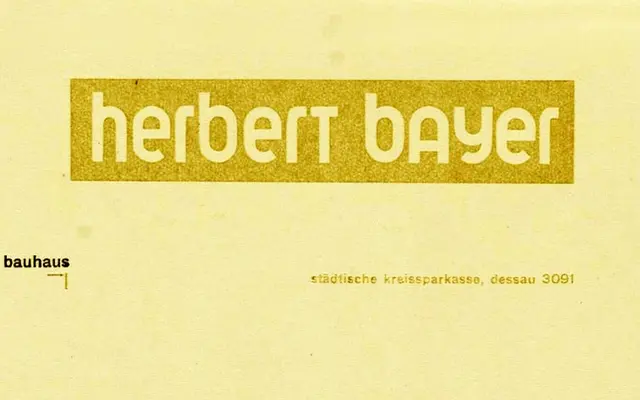
Architype Bayer
The Foundry Types · Herbert Bayer · 1925
A revival of Herbert Bayer's 1925 Bauhaus 'universal' alphabet, originally conceived as a minimal single-case geometric sans that was never cut as a typeface in his lifetime.
Drawn from Bauhaus Archiv sketches, this typeface reconstructs Bayer's radical reduction of the Latin alphabet to a single case, stripping out all but the most essential geometric forms. It belongs to The Foundry Types' Architype Universal collection, a series of revivals rooted in the inter-war European modernist movement. The character set is deliberately limited, faithful to the theoretical constraints of the original 'universal alphabet' thesis.
A revival of Herbert Bayer's 1925 'universal' single-alphabet Bauhaus design, built on strict geometric principles with minimal distinction between upper and lowercase forms.